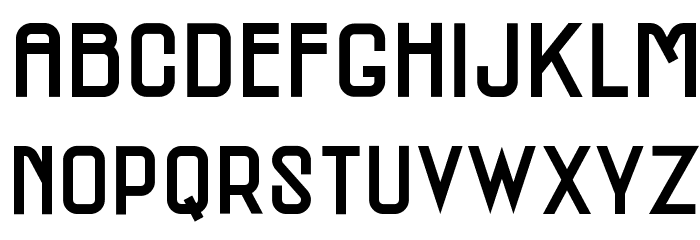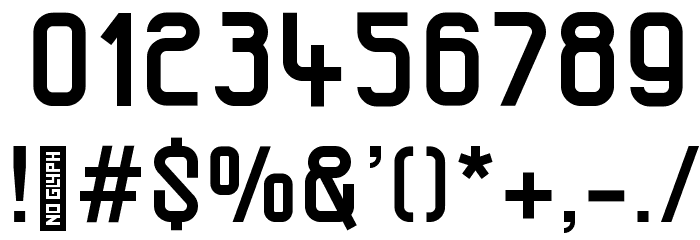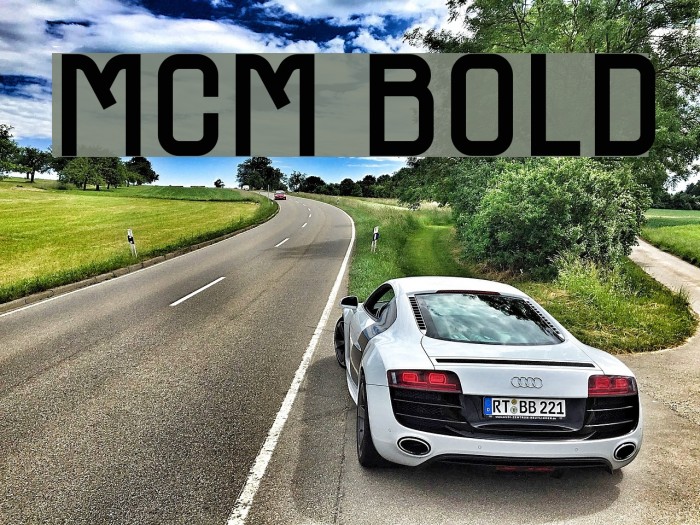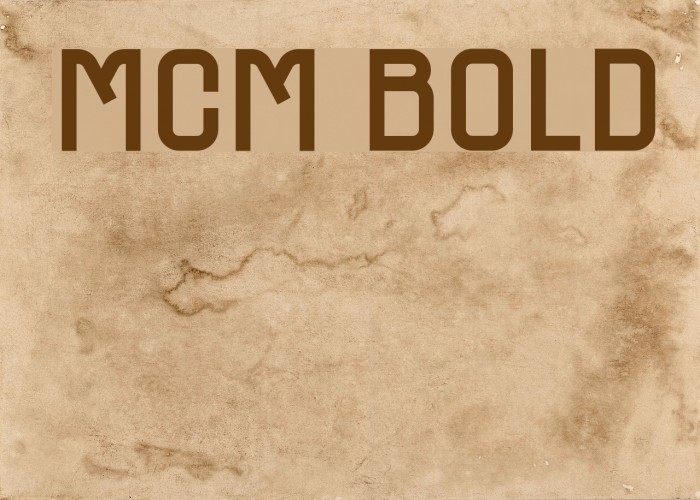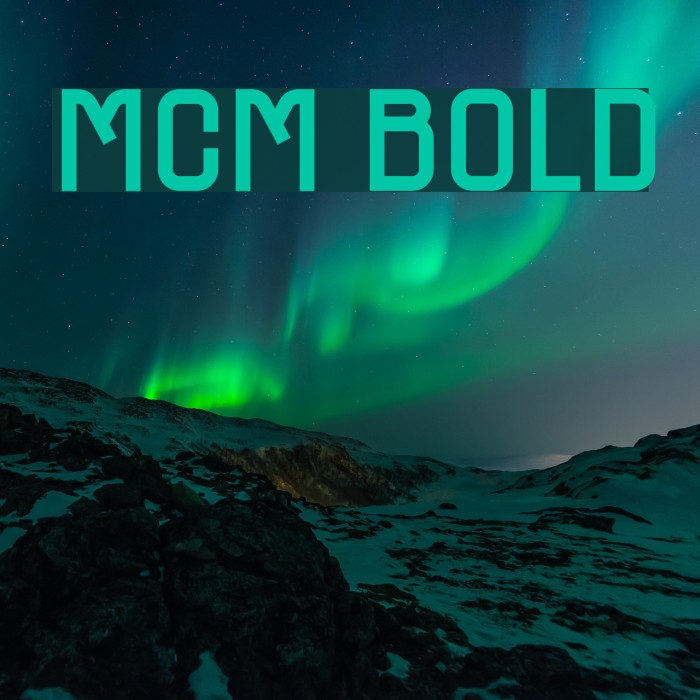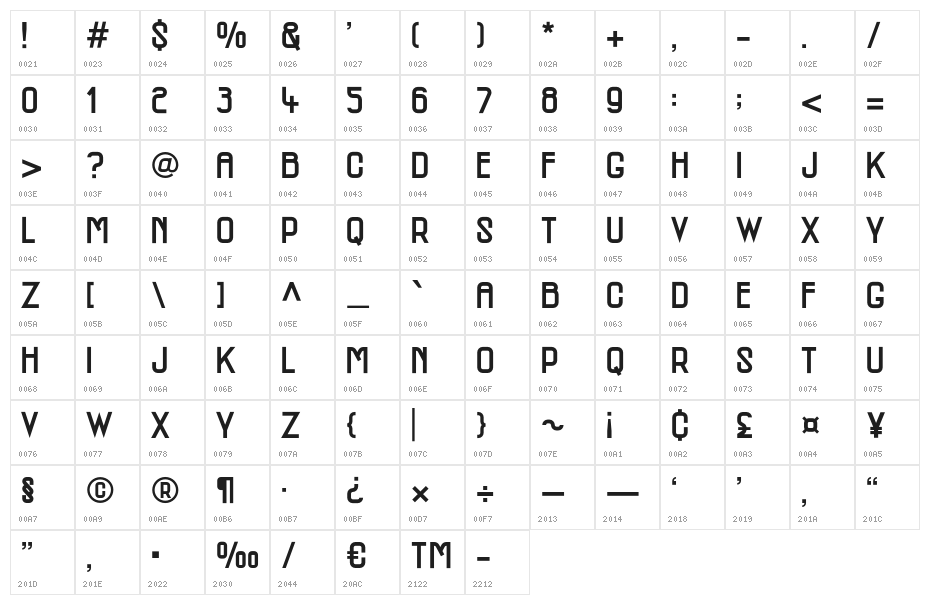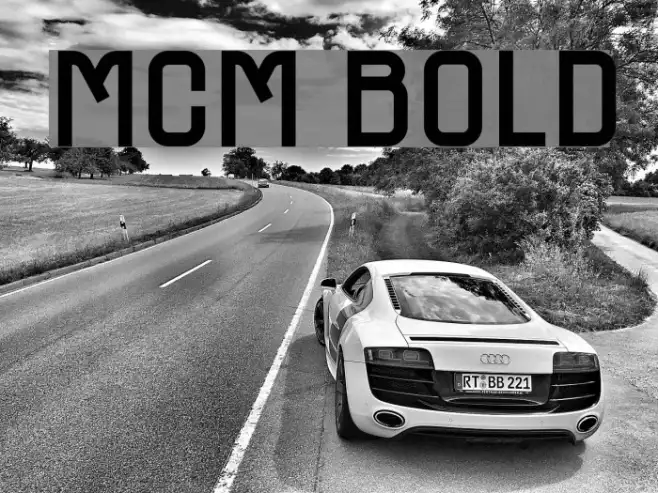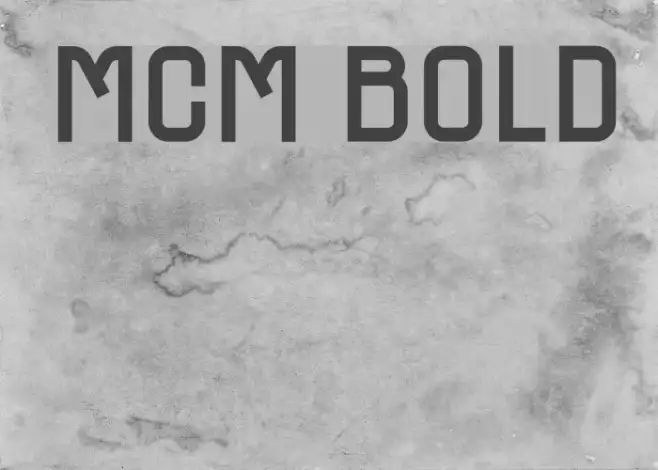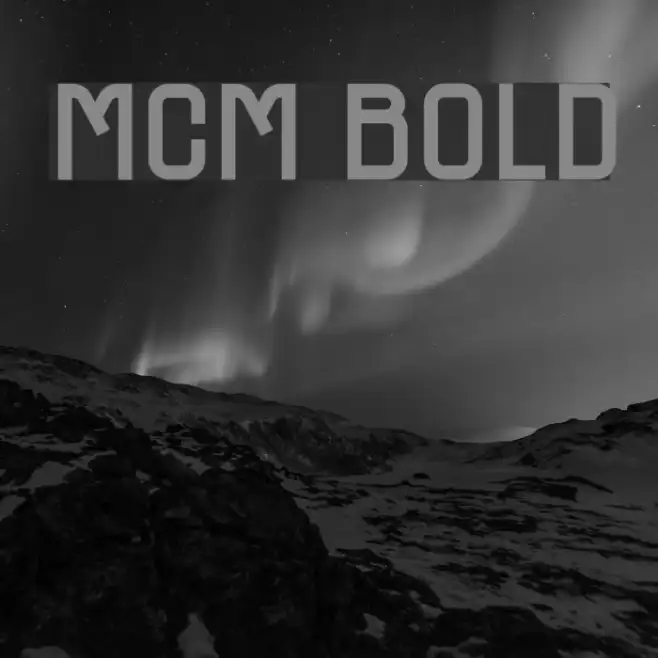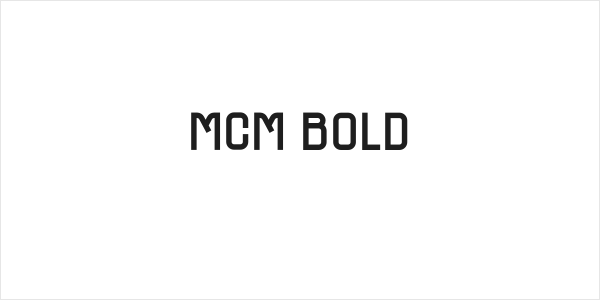
MCM Bold Font
This font features a bold, geometric sans-serif style with a modern and clean appearance. The characters are uniform in width, providing a balanced and structured look. The uppercase letters are distinct with sharp angles and straight lines, while the lowercase letters maintain a similar geometric form. The numerals are consistent with the overall design, offering clarity and readability. Special characters are well-integrated, maintaining the font's cohesive aesthetic. This font is suitable for projects that require a strong, contemporary feel.
A bold, geometric sans-serif font with a modern and structured design.
- Proposed Projects: Ideal for branding, headlines, posters, and digital interfaces that require a modern and bold aesthetic.